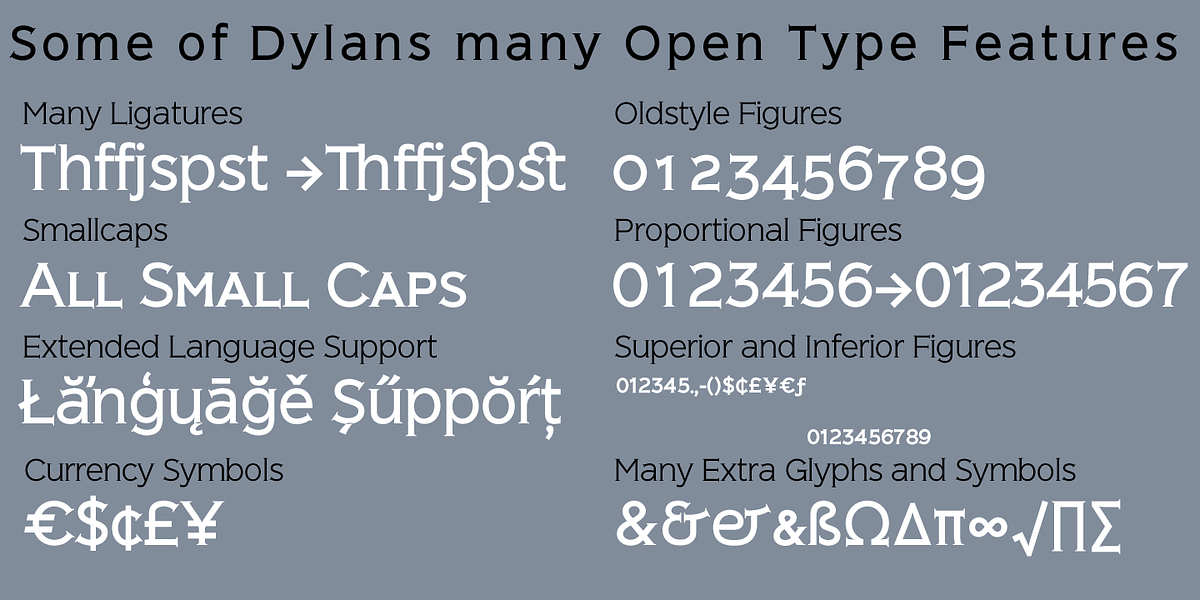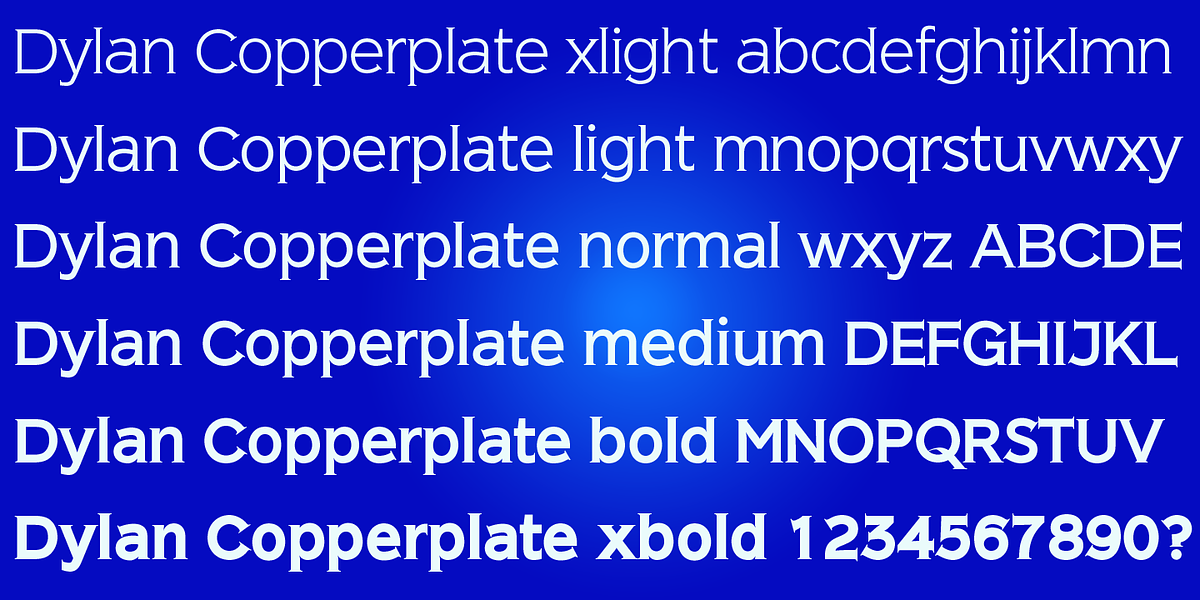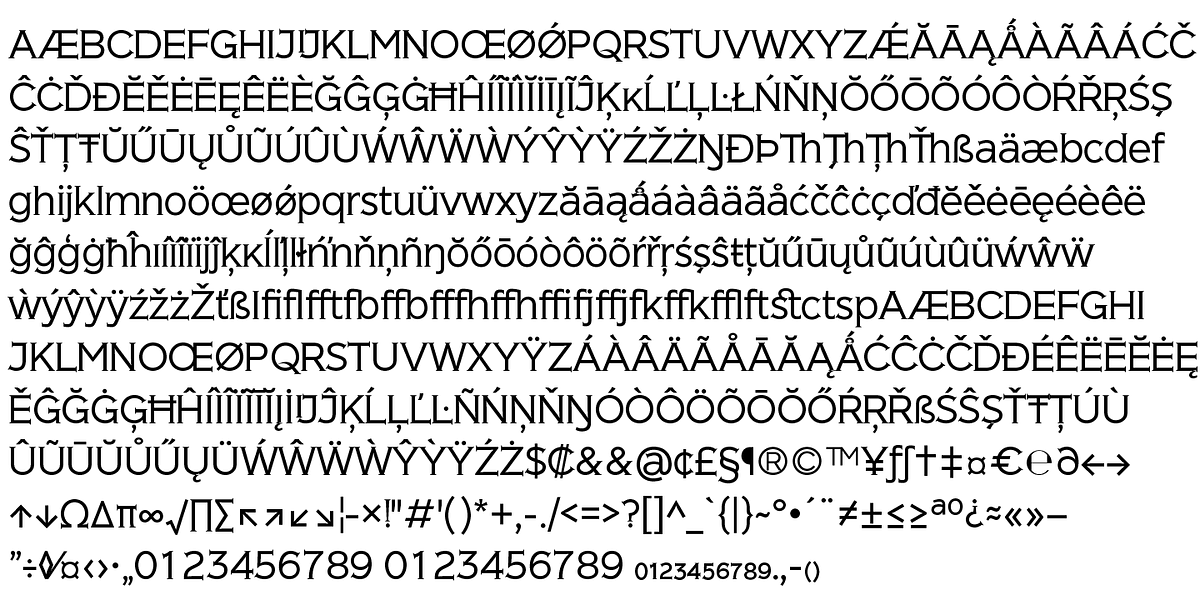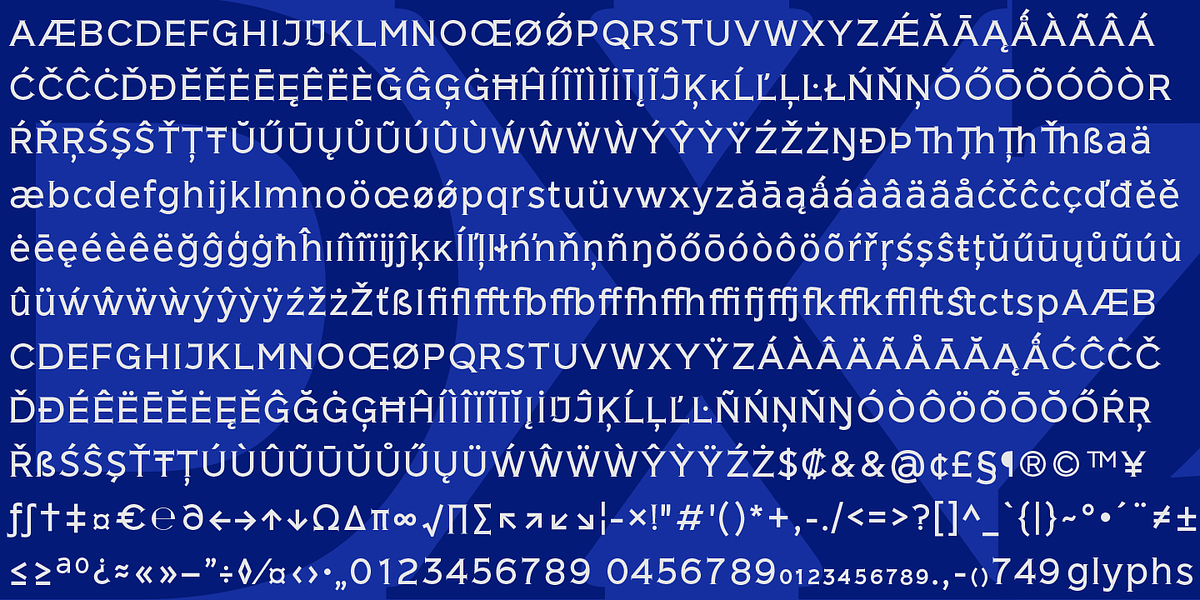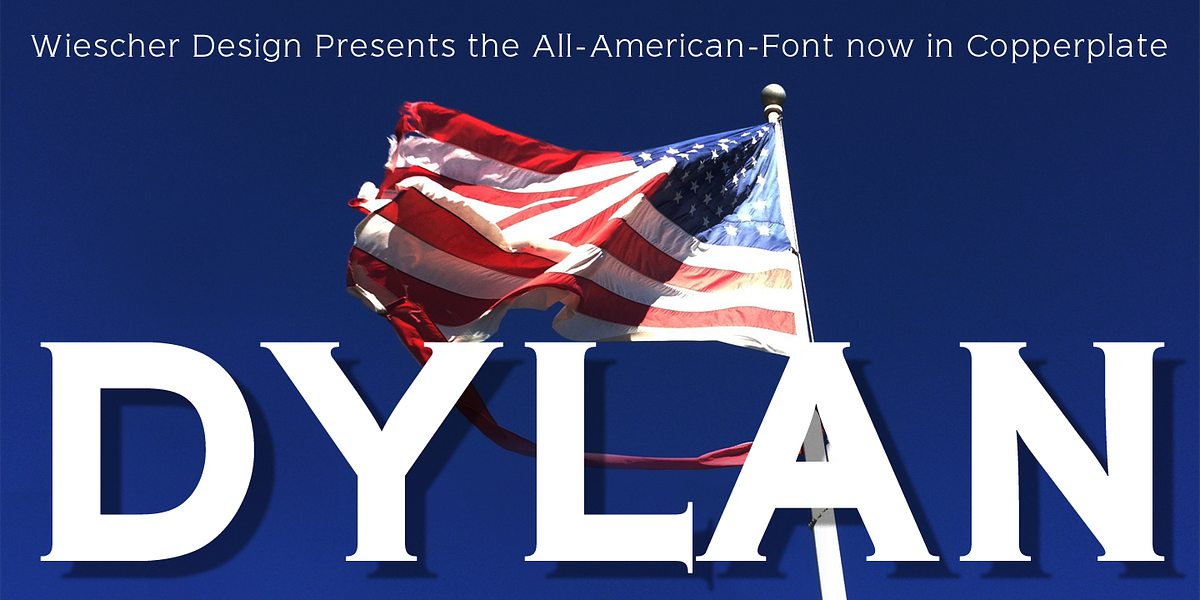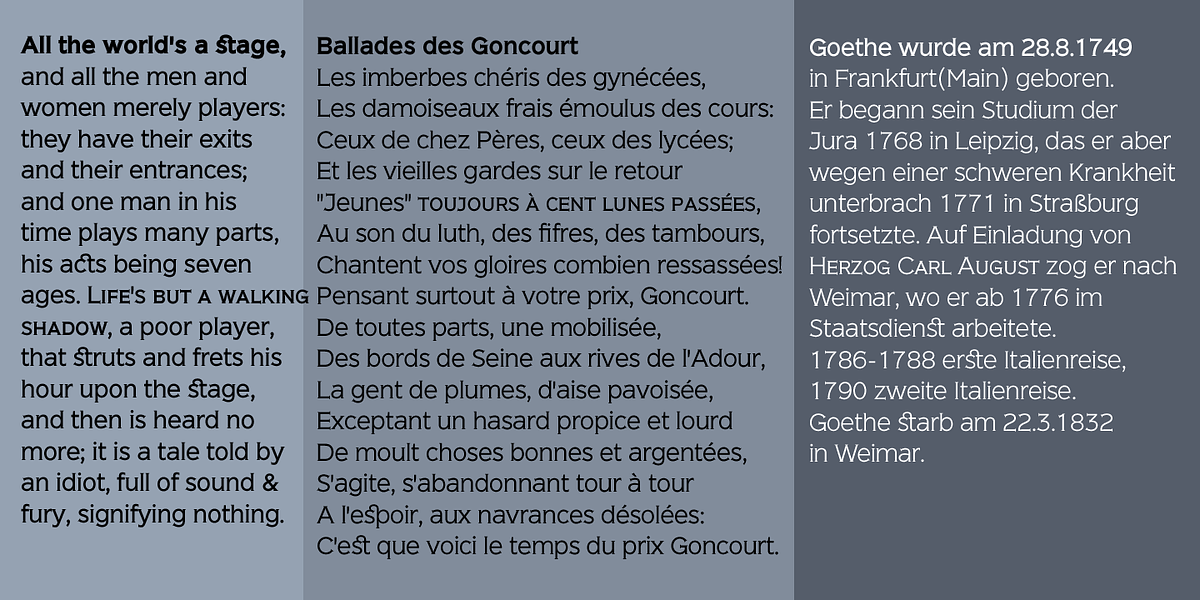
Dylan Copperplate
Dylan-Copperplate is a serif font characterized by its elegant design and copperplate details. The small flourishes added by the designer give it a refined and handsome appearance. It's well-suited for a variety of applications, including invitations, business cards, and classy advertising.